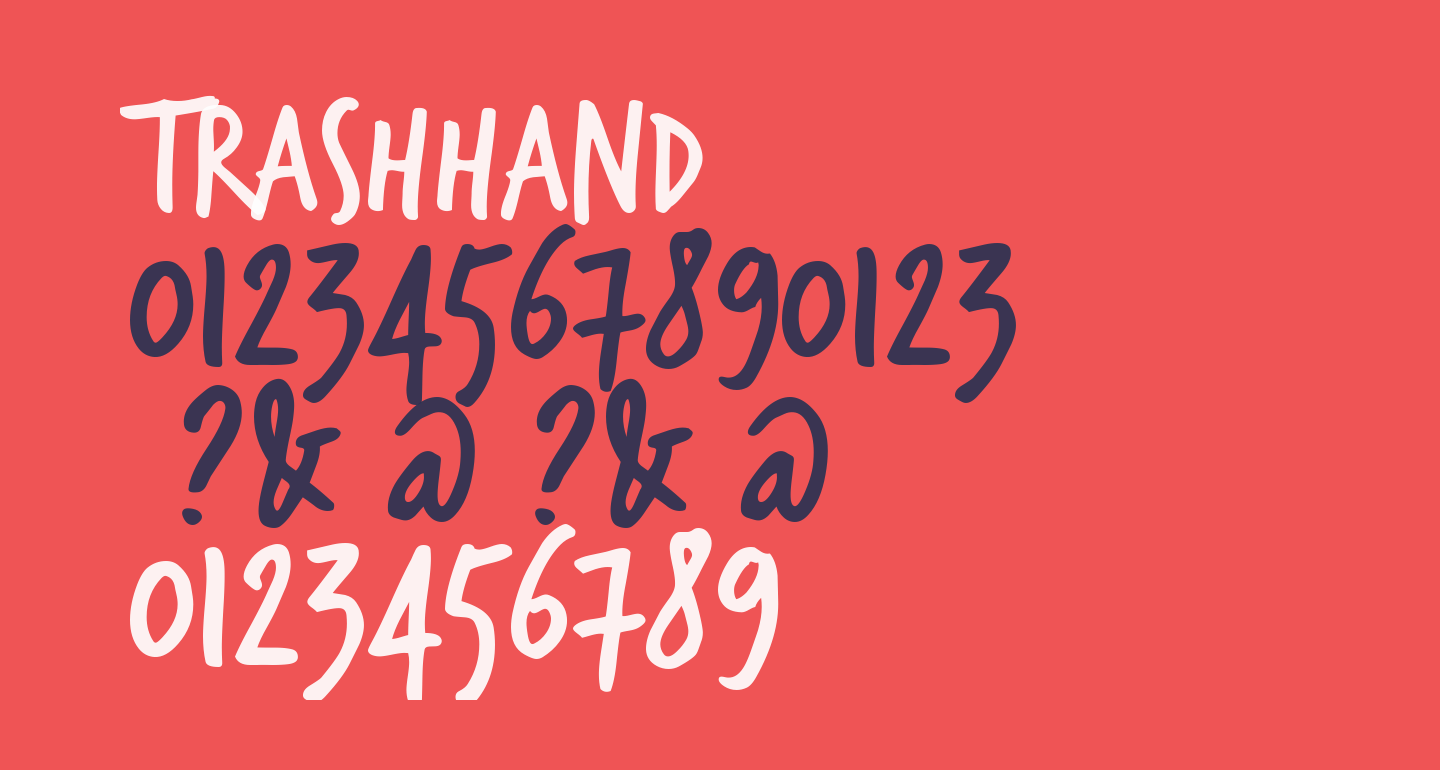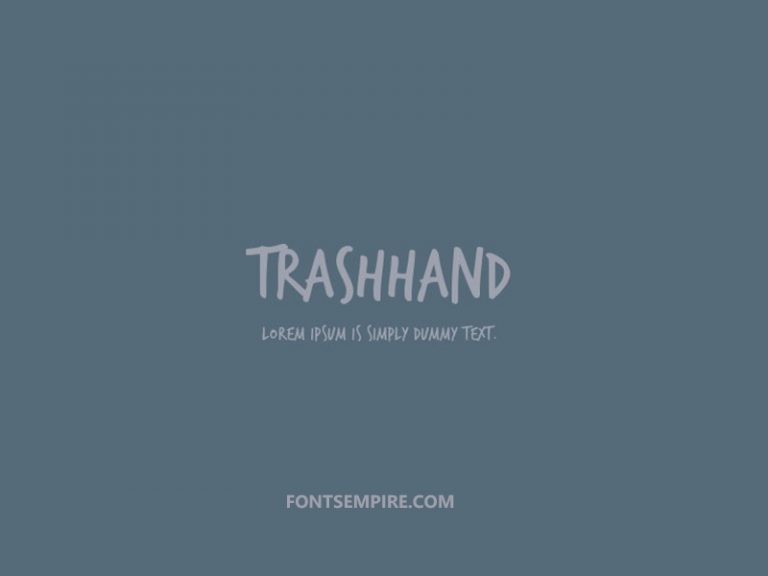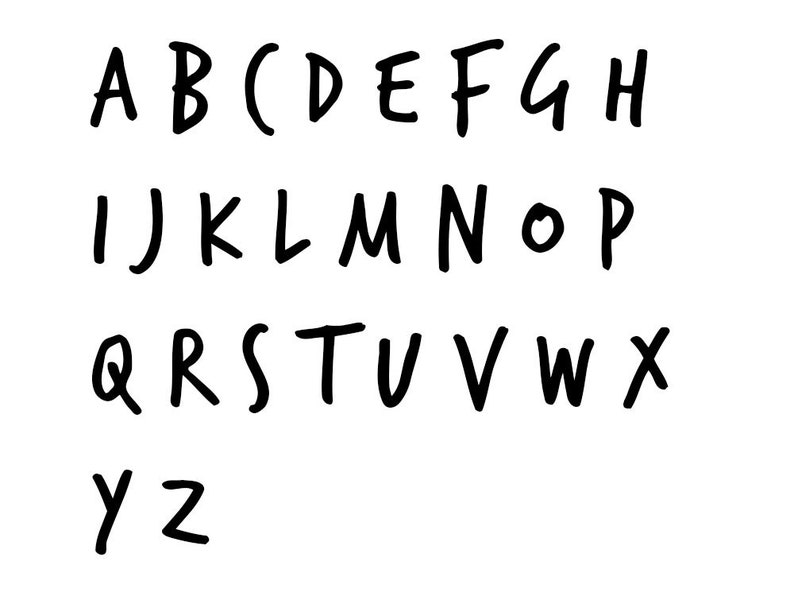
Trashhand Font. download trashhand font free! download and install trashhand, a handdrawn font with all caps, casual and marker styles. trash hand is a free handwriting font designed by luce avérous. It contains 251 characters and 101 glyphs, and is free for both personal and. Trashhand by creation octobre 2001 luce averous, luce@averous.com www.luce.averous.com. This font is unlicensed and may be used commercially, but check the. looking for trashhand font designed by luce avã©rous? download and install the trash hand font, a free font with a handwritten style inspired by trash. Click here to create a custom image with your own text. trashhand is a script, handwritten font designed by luce averous. The font has been downloaded over 49,000 times and is licensed for. 2,148,280 downloads (204 yesterday) 45 comments. Download font free at fontriver. Trashhand à by luce avérous.